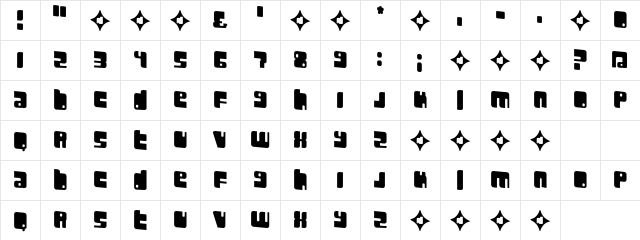
Complete GirlieMen Regular glyph index. Displaying only characters natively supported by GirlieMen Regular font.
GirlieMen is a composed and adaptable typeface that performs quietly and consistently across a wide range of design contexts.